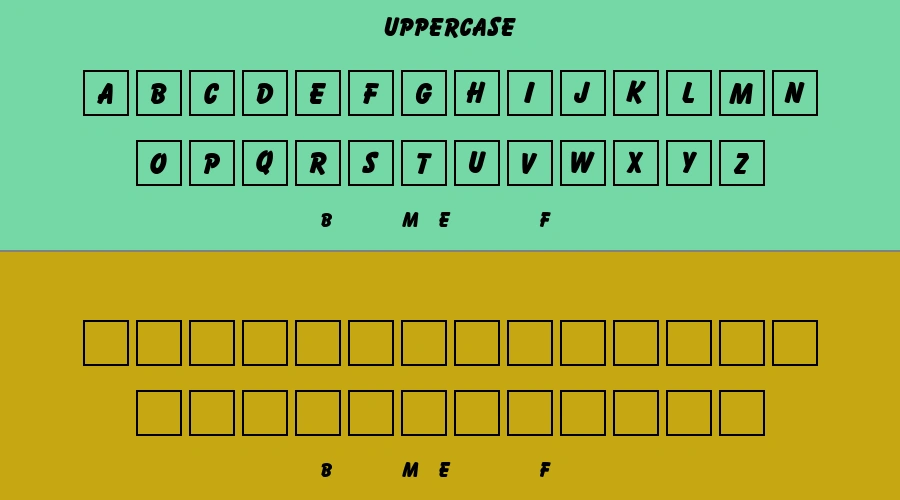
About Balloon Mn Extrabold Font
Balloon Mn Extrabold Font represents a sophisticated approach to type design, balancing fluid motion with design consistency. Perfect for film titles, this font family showcases impressive longevity and classic beauty throughout its character set. Designers appreciate its versatility and reliability.
Designers will appreciate nuanced touches including calligraphic strokes and stylistic alternates, adding sophistication to any project. These features become apparent in hero imagery, where language switching matters most. The careful treatment of contrast level and creative versatility ensures optimal performance.